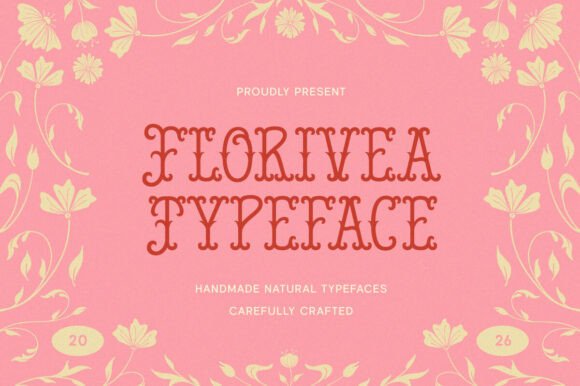
Introducing Florivea Typeface: A Sweet and Playful Font with a Retro Charm
Are you looking for a font that can add a touch of nostalgia and whimsy to your design projects? Look no further than Florivea Typeface, a beautiful and charming font that feels like a sweet little throwback wrapped in soft petals and sunshine. With its curvy serif shapes, playful details, and slightly quirky rhythm, Florivea brings a gentle retro charm that’s both cute and eye-catching.
A Handmade, Storybook Vibe
Florivea Typeface has a distinctly handmade, storybook vibe that’s reminiscent of vintage packaging, cozy café menus, or dreamy branding with a touch of nostalgia. The font’s curvy serif shapes and playful details give it a friendly and approachable feel, making it perfect for designers and crafters who want to add a personal touch to their work.
Whether you’re working on a branding project, packaging design, or marketing materials, Florivea Typeface is a versatile font that can be used in a variety of contexts. Its gentle retro charm and playful details make it ideal for:
• Vintage-inspired branding and packaging
• Coffee shop and restaurant menus
• Children’s book illustrations and educational materials
• Social media graphics and blog posts
Key Features of Florivea Typeface
So, what makes Florivea Typeface so special? Here are some of its key features:
• Curvy serif shapes: Florivea’s serif shapes are rounded and curvy, giving the font a friendly and approachable feel.
• Playful details: The font includes playful details like subtle swashes and quirky letterforms that add to its whimsical charm.
• Slightly quirky rhythm: Florivea’s letterforms have a slightly irregular rhythm, which gives the font a handmade, organic feel.
• Retro charm: The font’s overall aesthetic is reminiscent of vintage designs from the mid-20th century.
Why Designers and Crafters Love Florivea Typeface
Designers and crafters love Florivea Typeface for many reasons. Here are a few:
• Easy to read: Despite its playful details, Florivea is easy to read, even at small sizes.
• Versatile: The font can be used in a variety of contexts, from digital designs to print materials.
• Unique: Florivea’s distinctive style sets it apart from more traditional fonts.
• Evocative: The font’s retro charm and playful details evoke a sense of nostalgia and whimsy.
How to Use Florivea Typeface in Your Designs
• Pair it with bold fonts: Florivea pairs well with bold, sans-serif fonts that provide a nice contrast to its playful details.
• Use it for headings and titles: Florivea’s curvy serif shapes and playful details make it perfect for headings and titles.
• Add texture and patterns: Consider adding texture and patterns to your designs to enhance the font’s handmade, storybook vibe.
Florivea Typeface is a beautiful and charming font that’s perfect for designers and crafters who want to add a touch of nostalgia and whimsy to their design projects. With its curvy serif shapes, playful details, and slightly quirky rhythm, Florivea brings a gentle retro charm that’s both cute and eye-catching. Whether you’re working on a branding project, packaging design, or marketing materials, Florivea is a versatile font that can help you create unique and eye-catching designs.